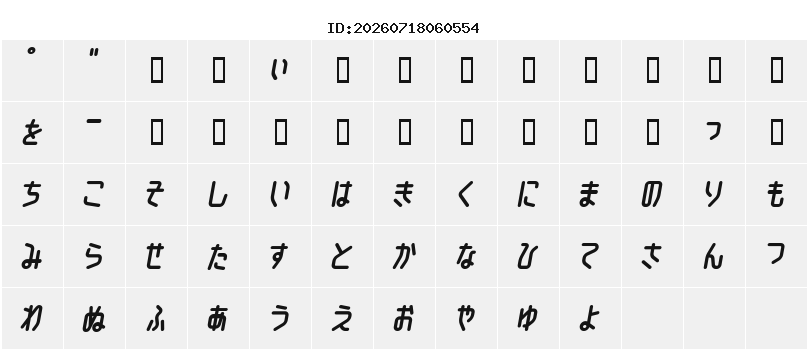
ChildishHR Preview
• Font Name: ChildishHR
• Font ID: Fontographer 4.7 ChildishHR
• Full Font Name: ChildishHR
• Version: Fontographer 4.7 08.2.18 FG4J­0000001007
• PostScript Name: ChildishHR
• Character Count: 72
About ChildishHR.ttf
ChildishHR.ttf is a modern, elegant sans-serif font designed for ultimate readability and visual harmony. Perfect for branding, headlines, web design, and print materials.